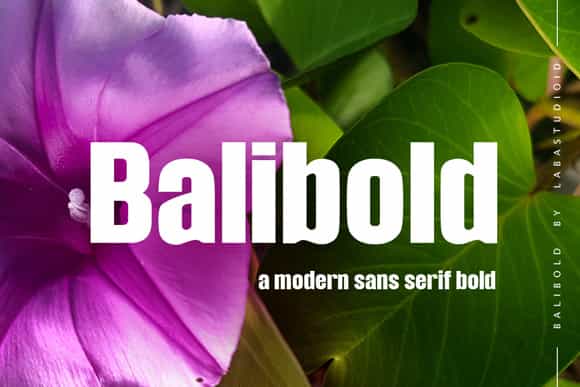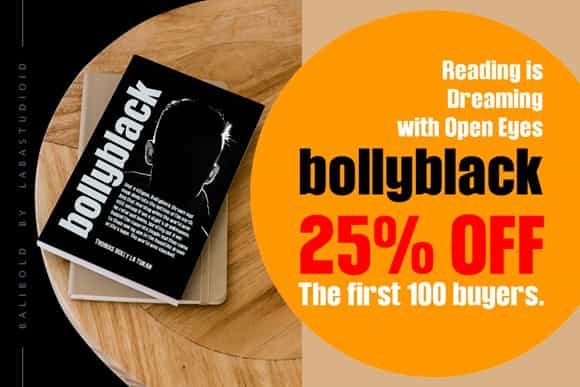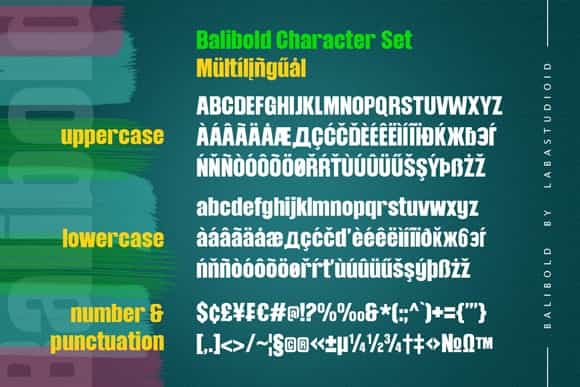
Balibold is an attention-drawing sans-serif font with meticulous design that focuses on pure joy. This is because Balibold has a casual look, a style that ensures that reading is not a hard task while at the same time being very flexible.